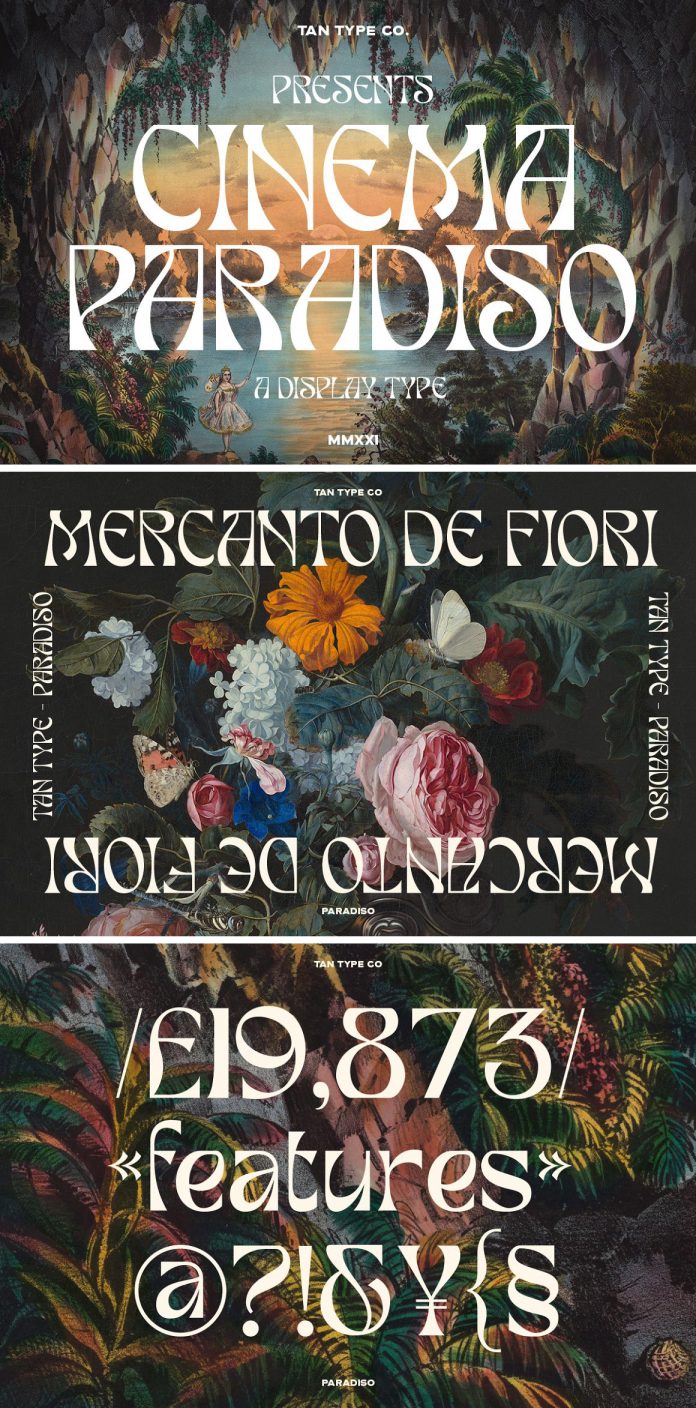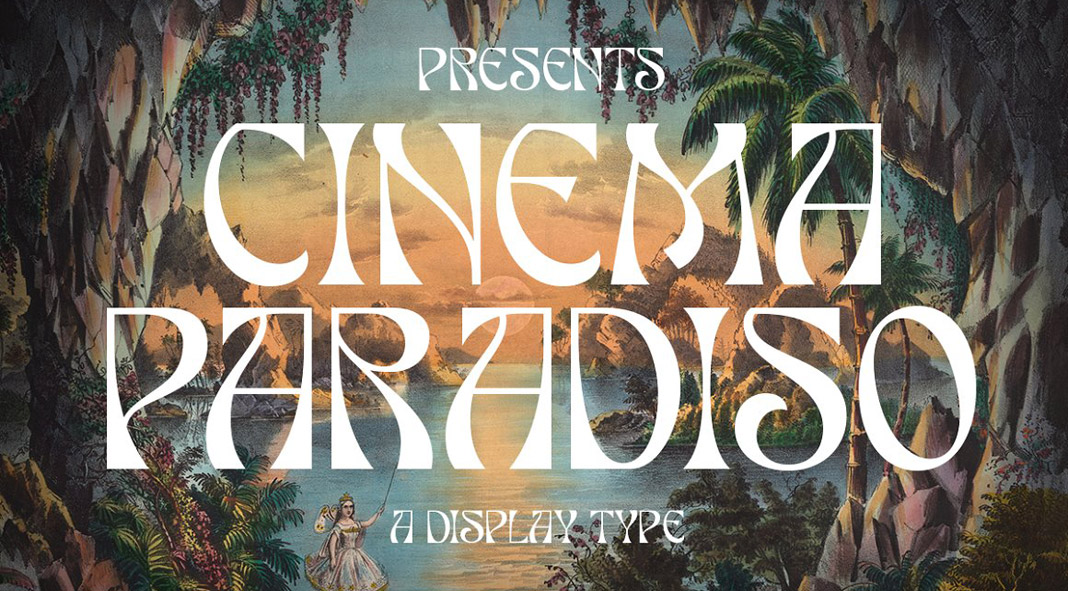
Tan Paradiso, a decorative display font from foundry TanType.
Inspired by the organic flow of art nouveau, Tan Paradiso is both quirky and elegant. It is a great choice for a wide range of projects. Its artsy elegant style matches perfectly with organic illustrations or images of plants and landscapes. Tan Paradiso supports multiple languages. For further information, just click on the following link or check out the images below.